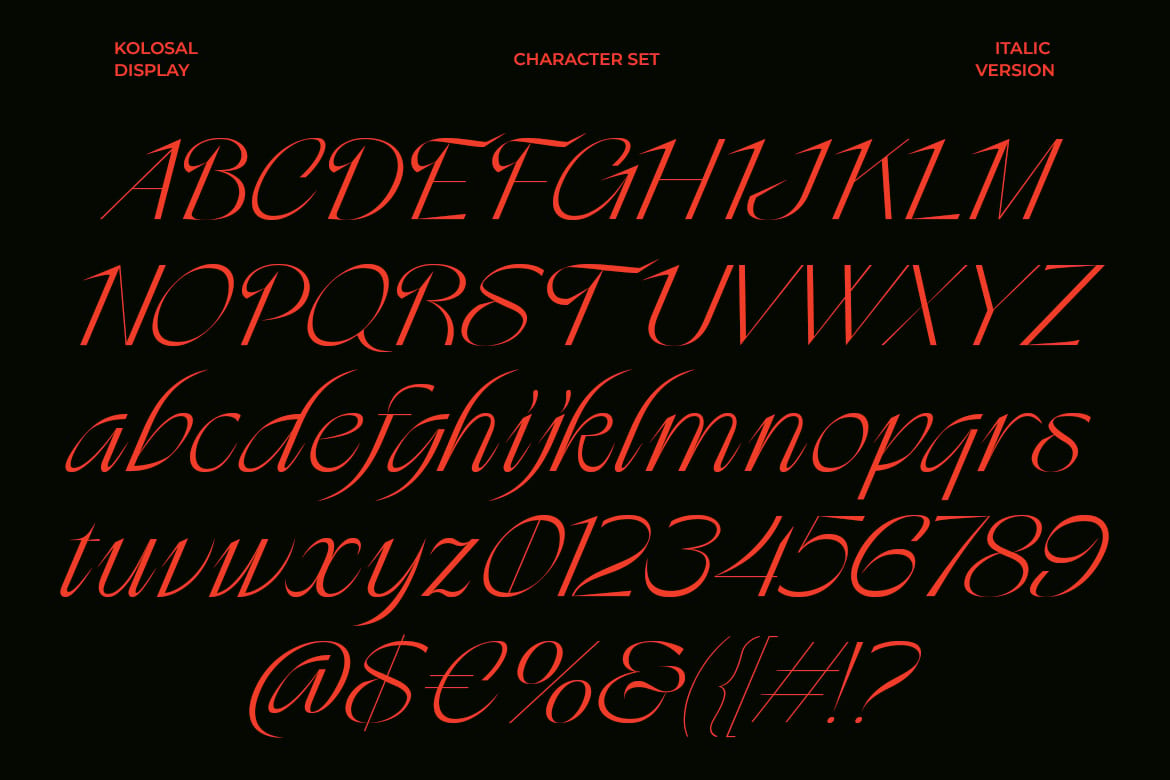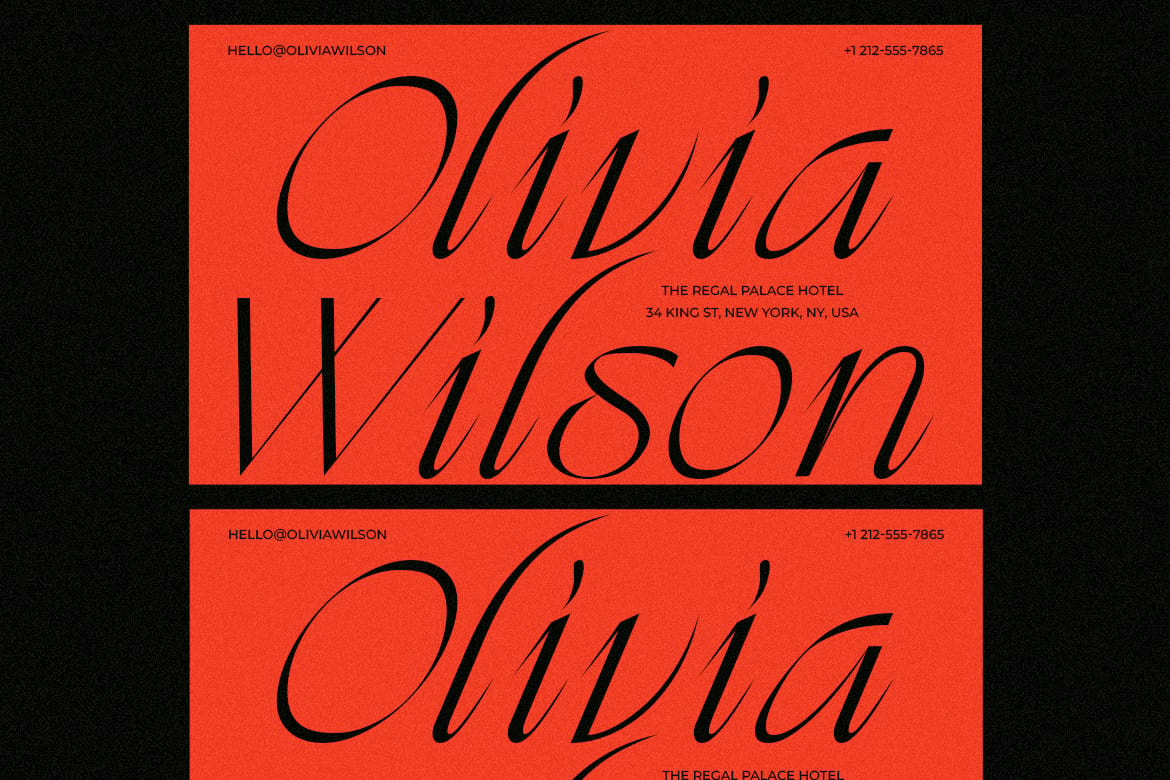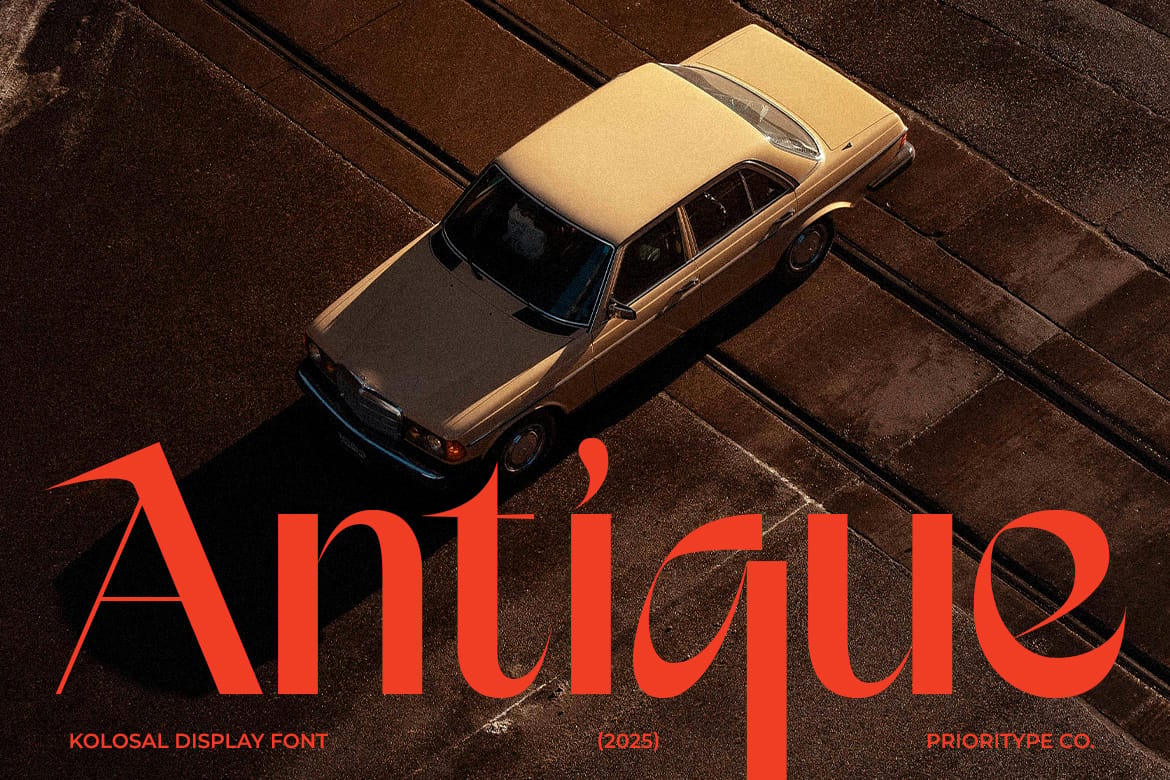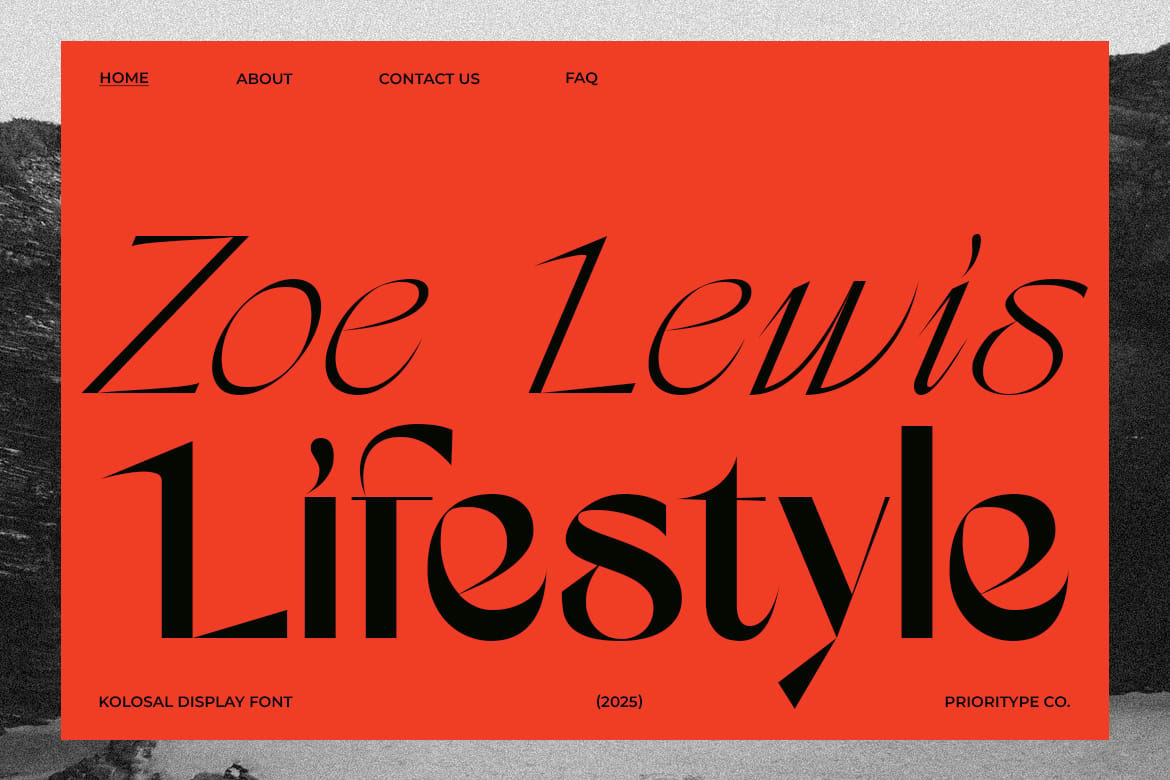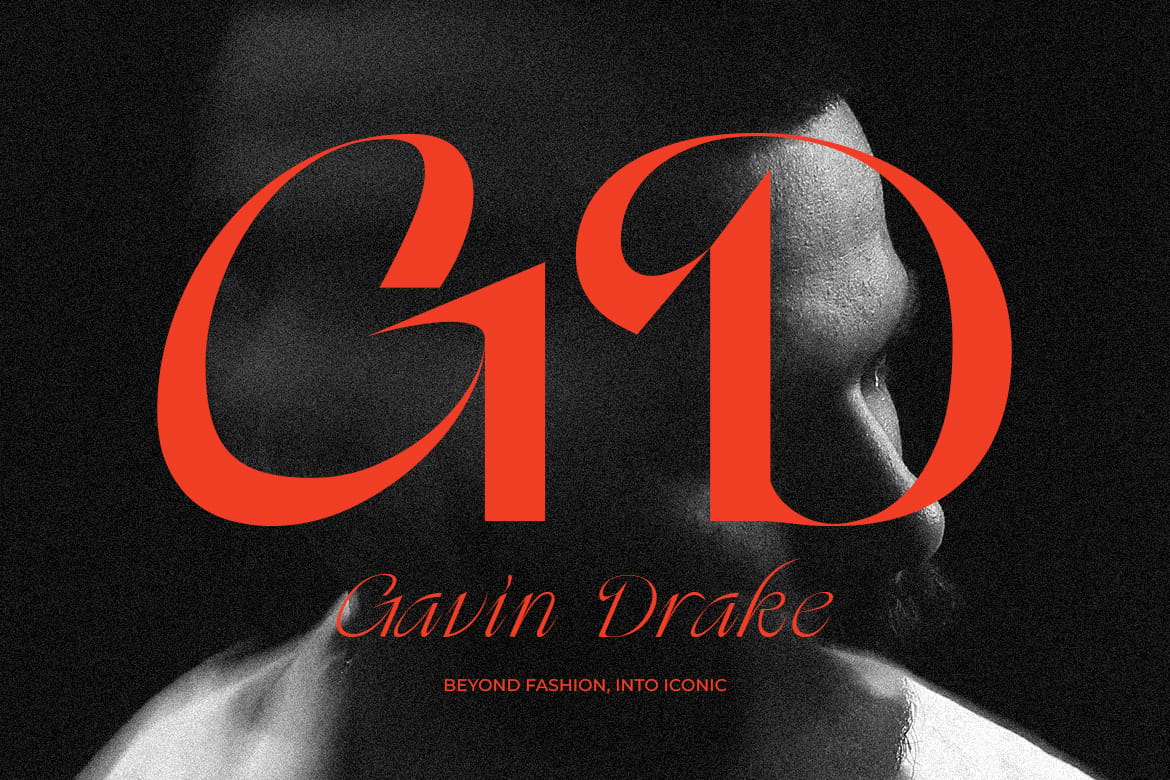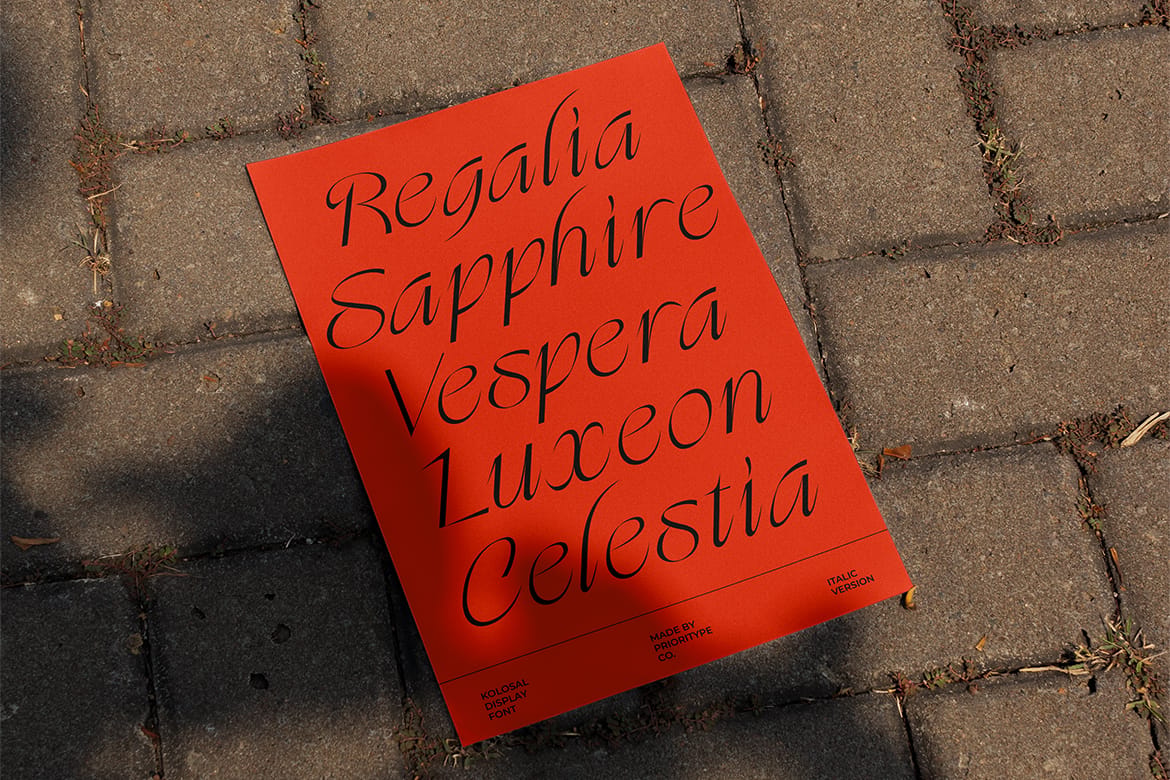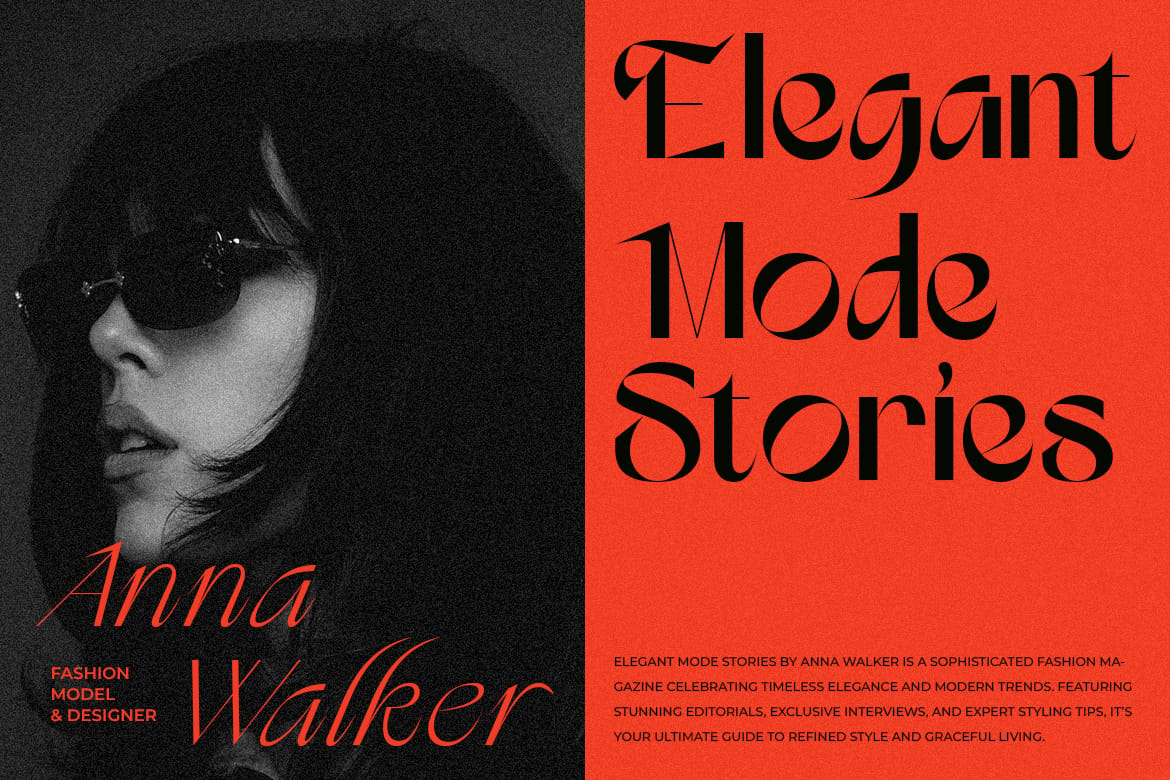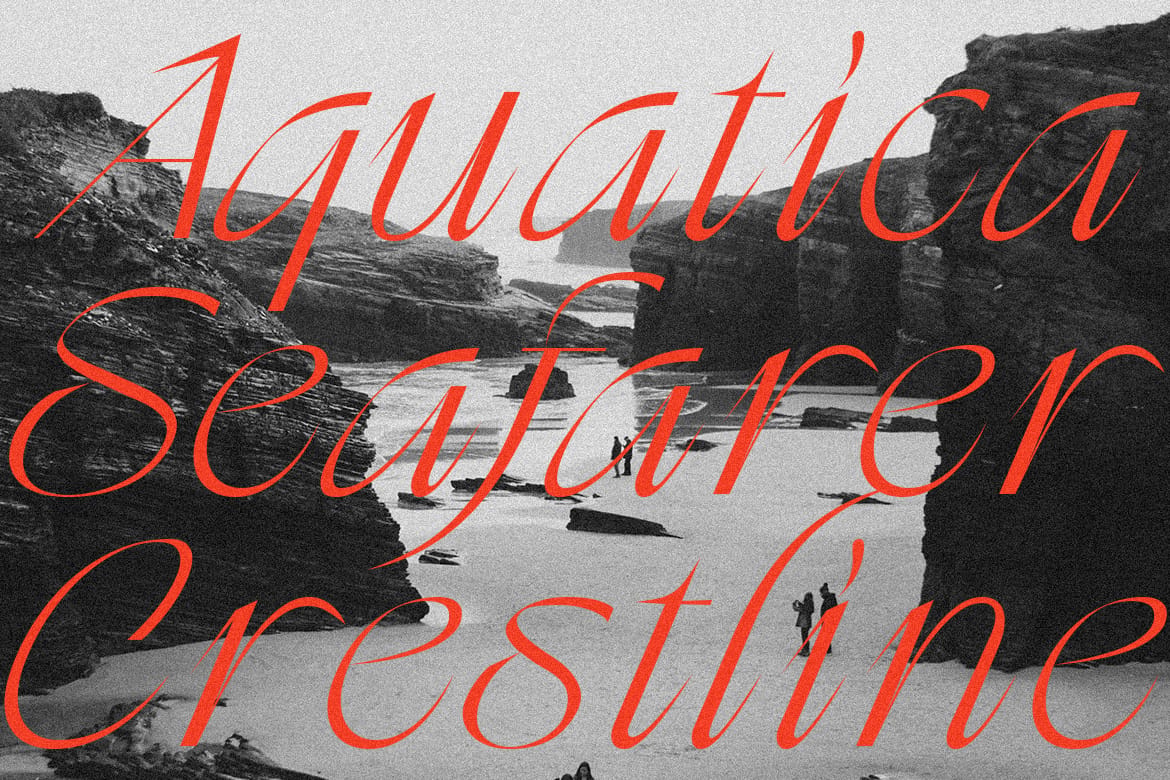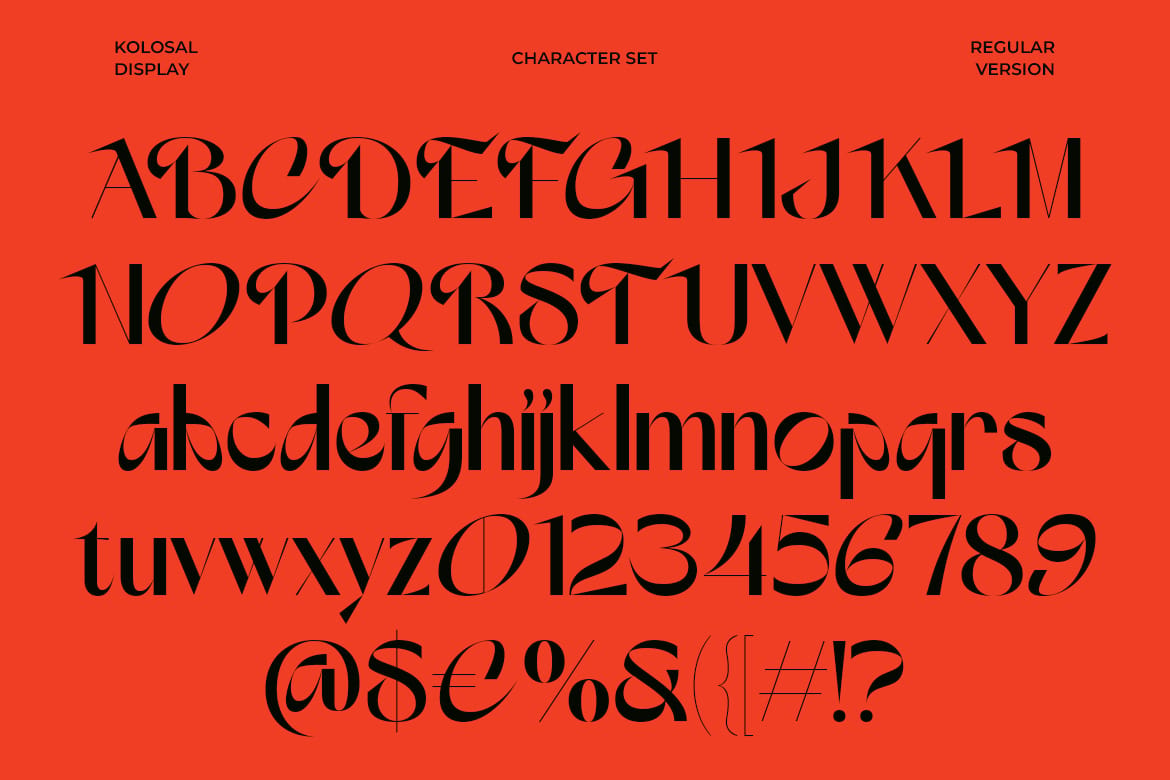
Kolosal Display is a bold and memorable typeface designed to make a statement. This unique font comes in two distinct styles:
Regular: Thick and powerful, perfect for commanding attention. Italic: Sleek and subtle, ideal for adding a refined touch.
The duality of Kolosal Display allows it to adapt seamlessly to various creative projects, from eye-catching posters to versatile branding designs. With its modern yet timeless appeal, Kolosal Display is guaranteed to leave a lasting impression.
Features: Uppercase, Lowercase, Numeral, Punctuation & Multilingual.
- Bold serif, Regular and Italic styles
- Elegant for fashion and branding